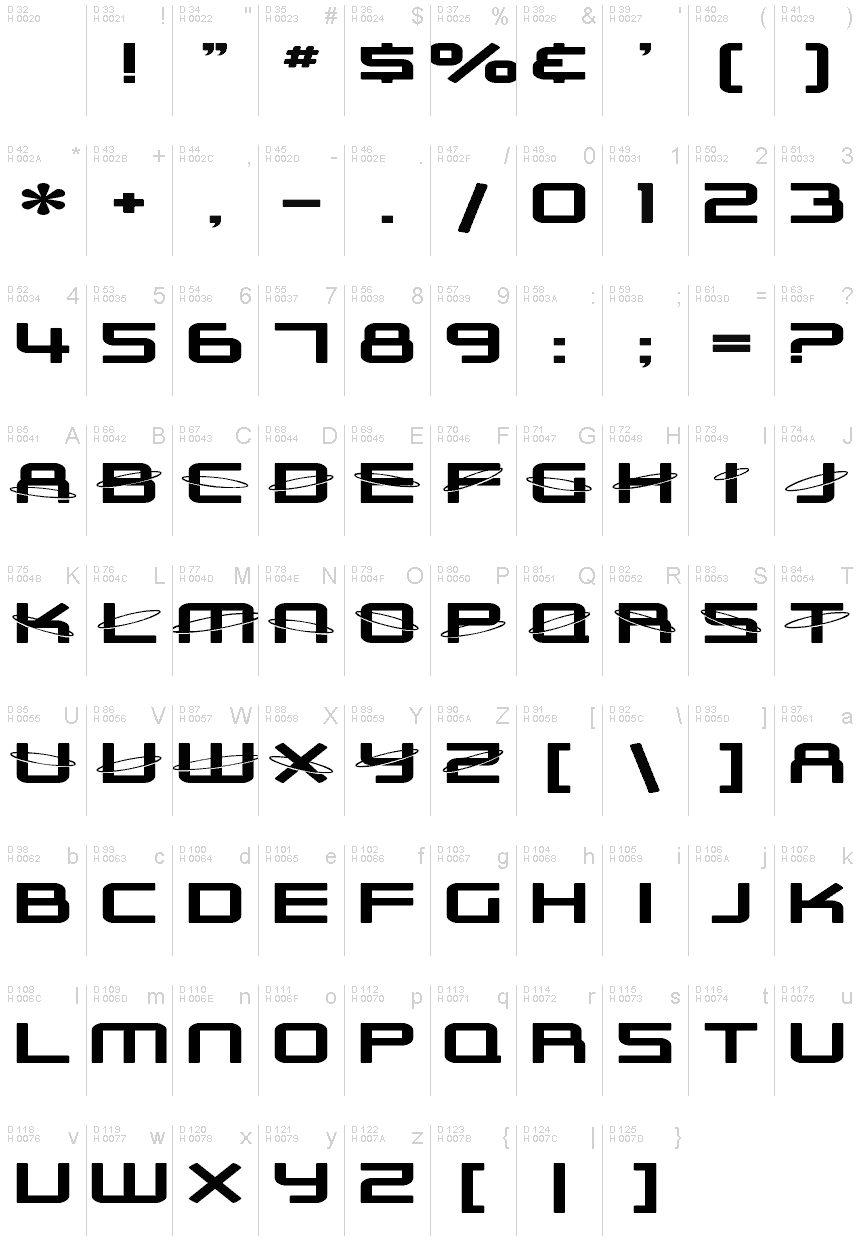
SF Outer Limits ExtUpright
SF Outer Limits ExtUpright is a font that boldly ventures into the realm of science fiction and modern aesthetics. Crafted by the ShyFonts Type Foundry, this member of the SF Outer Limits family exudes a futuristic vibe with its extra-expanded characters that stretch across space and imagination. Its display type classification ensures it stands out in any creative project, making it an ideal choice for titles, headers, and any application where a strong visual impact is desired.
The sleek lines and sharp angles of SF Outer Limits ExtUpright convey motion and technology, reflecting an advanced style that seems to leap off the page or screen. Its aesthetic appeals not only to fans of sci-fi genres but also to designers looking for a typeface with a contemporary edge.
Whether you're designing for film titles, tech startups, gaming interfaces, or promotional materials that demand attention, SF Outer Limits ExtUpright offers an unparalleled versatility in its category. Elevate your design work with this font's arresting presence and let your projects transcend ordinary typography to achieve something truly out-of-this-world.
The sleek lines and sharp angles of SF Outer Limits ExtUpright convey motion and technology, reflecting an advanced style that seems to leap off the page or screen. Its aesthetic appeals not only to fans of sci-fi genres but also to designers looking for a typeface with a contemporary edge.
Whether you're designing for film titles, tech startups, gaming interfaces, or promotional materials that demand attention, SF Outer Limits ExtUpright offers an unparalleled versatility in its category. Elevate your design work with this font's arresting presence and let your projects transcend ordinary typography to achieve something truly out-of-this-world.